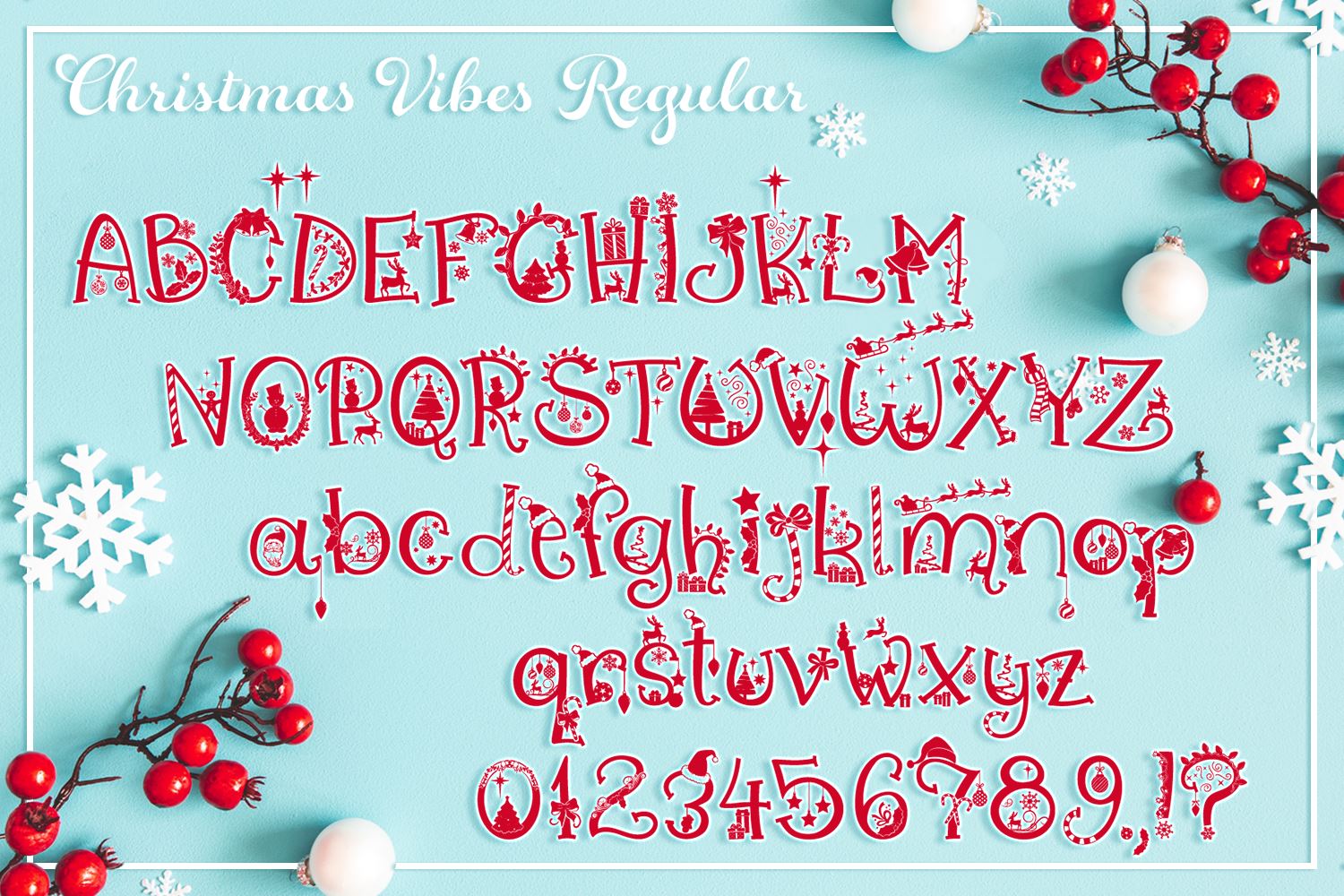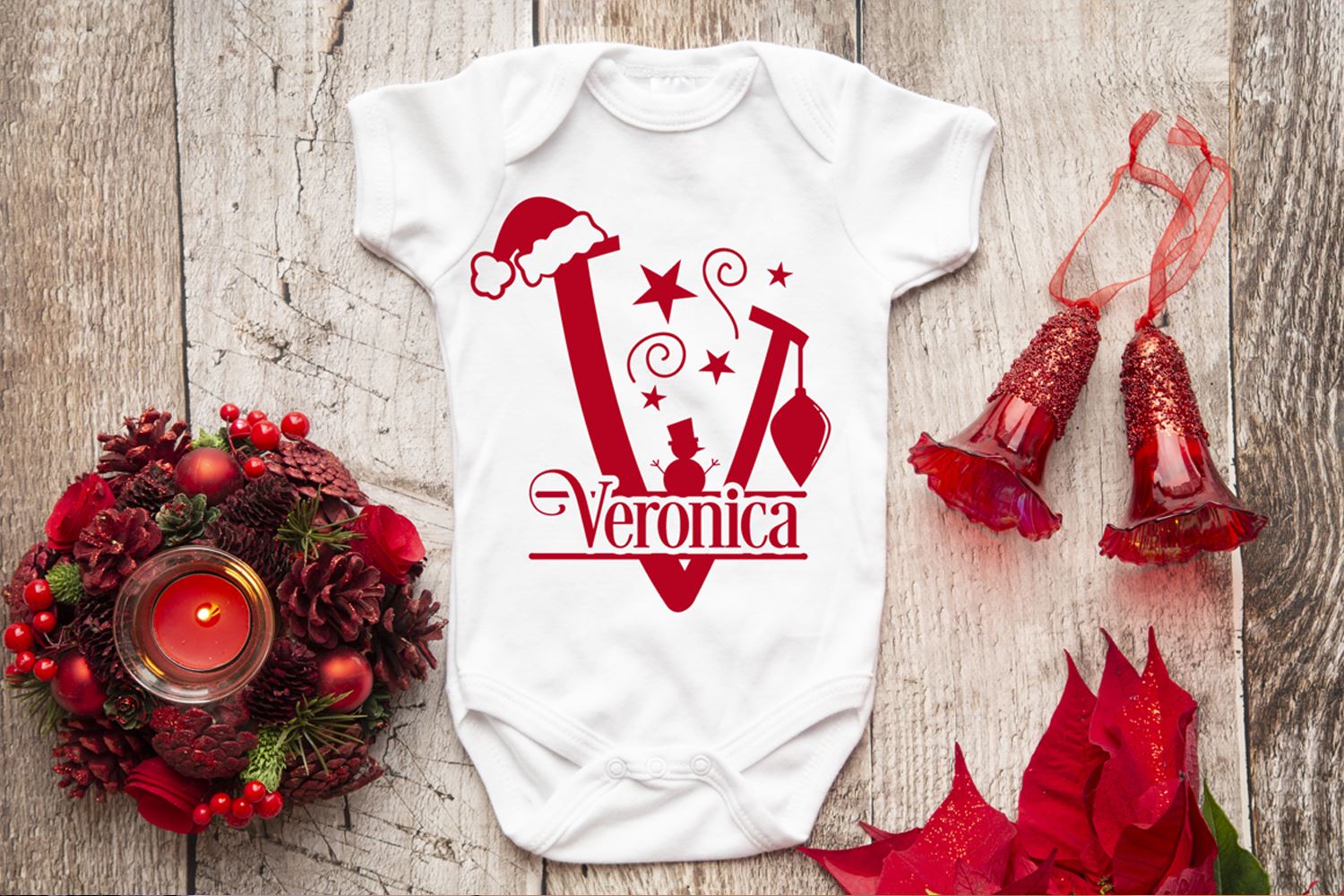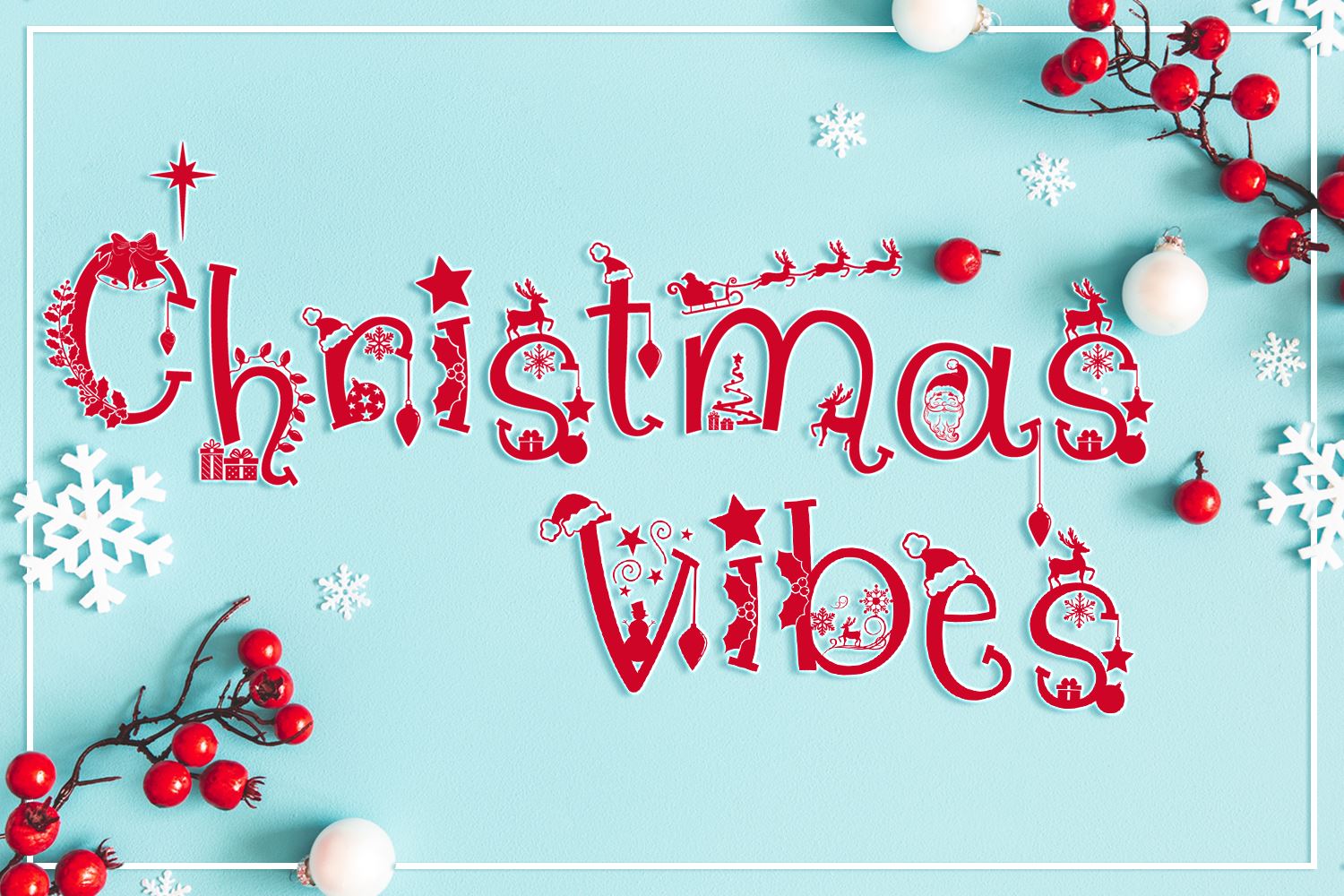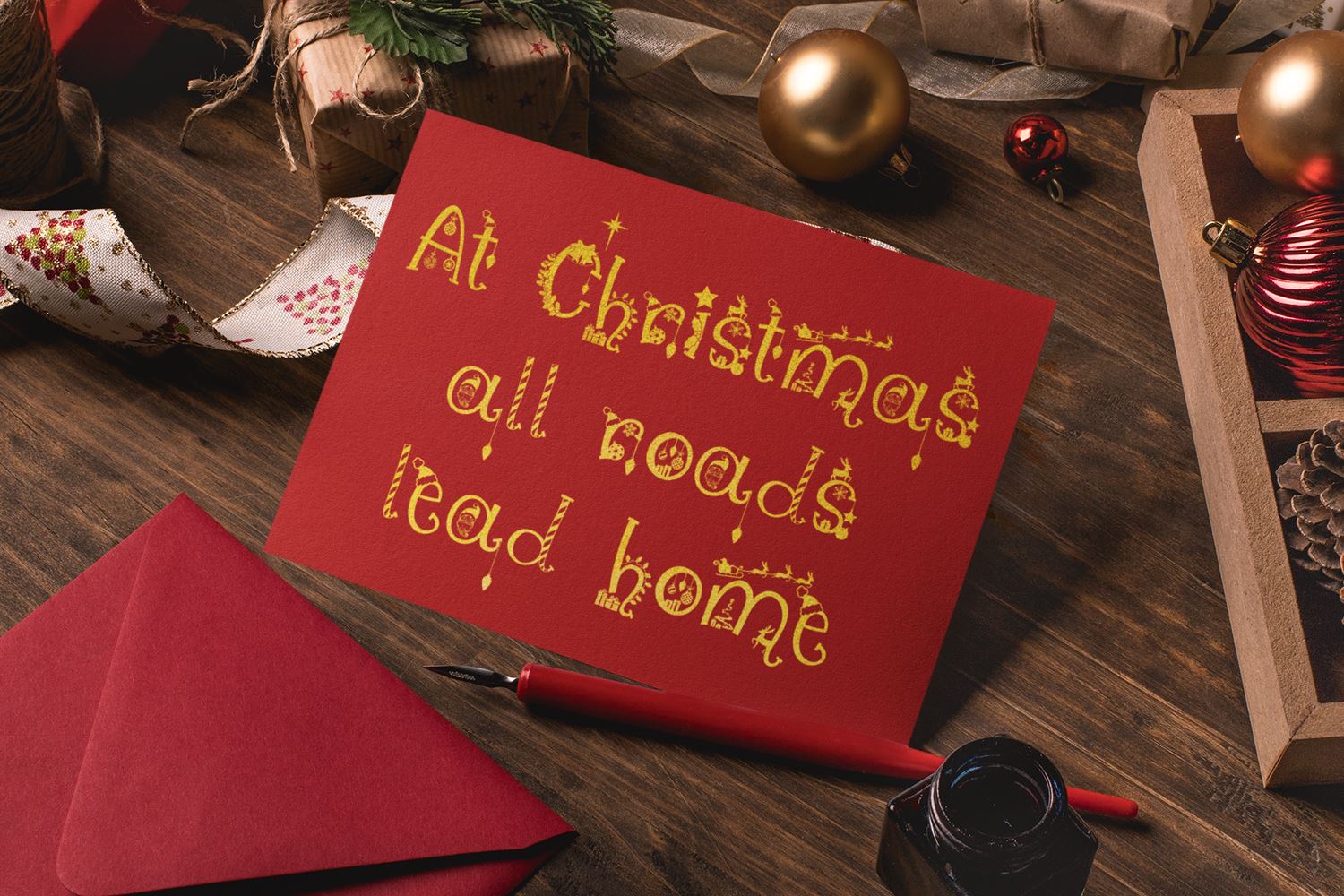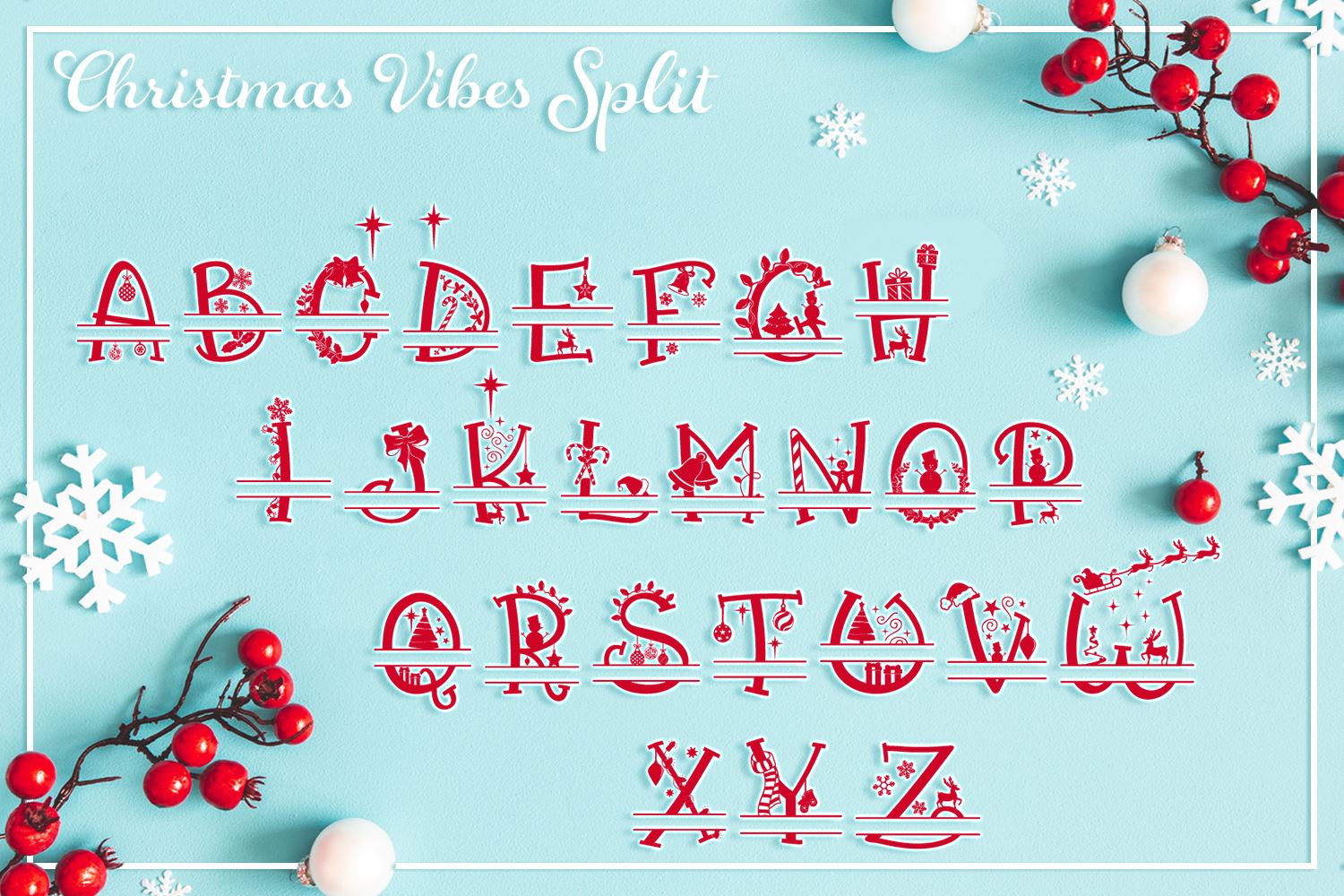
About Christmas Vibes: A Whimsical Christmas Font
This one took a lot of work, but hopefully, you will like it! The Christmas Vibes font family comes with three fonts: Christmas Vibes Regular, Christmas Vibes Quirky and Christmas Vibes Split. The Quirky version comes with an irregular baseline, giving it a playful feeling. Christmas Vibes Split is perfect for clothing, mugs, t-shirts, baby clothes or anything you can think of! The font is created from scratch, using as little points as possible to ensure you get the best results with minimum difficulty. Optimized for crafters with Cricut Design Space, Silhouette Studio, ScanNCut, and all major brands. The cutting takes much less time because the number of points in each letter is reduced to a minimum! In the download you get: – Christmas Vibes Regular. Comes with uppercase and lowercase A-Z letters, 0-9 numbers, and limited punctuation – Christmas Vibes Quirky. Comes with uppercase and lowercase A-Z letters, 0-9 numbers, and limited punctuation – Christmas Vibes Split. Comes with uppercase A-Z letters. No numbers or punctuation. Thank you for checking out my shop! Yours, Stasia